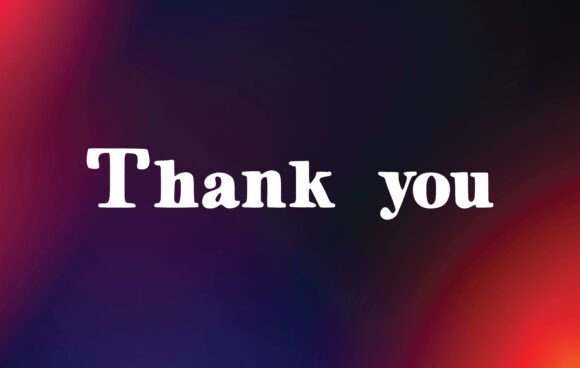
Aziza Font: The Ultimate Creative Companion for Your Design Needs
In the world of typography, a font can make or break a design. It’s the foundation upon which your creative ideas are built, and choosing the right one can elevate your project from ordinary to extraordinary. This is where Aziza Font comes into play – a versatile, eye-catching, and highly legible typeface designed to bring your creative visions to life. Whether you’re a seasoned designer or a DIY enthusiast, Aziza Font is poised to become your go-to favorite for a wide range of design applications.
What Makes Aziza Font Stand Out?
Aziza Font is crafted with clarity and readability in mind, making it an excellent choice for both titles and body text. Its clean lines and well-balanced structure ensure that your message is conveyed with precision and style, regardless of the medium. Here are some key features that make Aziza Font a standout:
- Versatility: Aziza Font is designed to be versatile, allowing it to seamlessly integrate into various design projects. From magazine covers and t-shirts to social media posts, branding materials, wedding invitations, and greeting cards, this font adapts to any style or theme with ease.
- Eye-Catching: With its unique charm and character, Aziza Font is sure to capture the attention of your audience. Its aesthetic appeal lies in its ability to blend modernity with classic typographic elements, making it both contemporary and timeless.
- Legibility: The clarity of Aziza Font is one of its most compelling features. It’s designed to be easy to read, even at smaller sizes, which makes it perfect for body text and detailed content.
Applications of Aziza Font
The versatility of Aziza Font means it can be used across a broad spectrum of design projects. Here are some of the areas where Aziza Font truly shines:
Magazine Covers and Publishing
For magazine covers, Aziza Font can serve as a headline or title font, grabbing the attention of potential readers with its stylish and modern appeal. Its legibility ensures that the title of your publication stands out, even from a distance.
Fashion and Apparel
When it comes to designing t-shirts, hoodies, or any fashion apparel, Aziza Font can add a touch of sophistication and trendiness. Its clear and readable design ensures that your message or logo is easily recognizable and memorable.
Social Media and Digital Content
In the digital realm, Aziza Font can elevate your social media posts, blog headers, and website content. Its modern look and feel can help increase engagement and make your content more shareable.
Branding and Marketing Materials
For branding, Aziza Font can be used consistently across all marketing materials to create a cohesive and professional look. Its versatility allows it to work well in logos, brochures, business cards, and more.
Wedding Invitations and Greeting Cards
Aziza Font brings an elegant and personal touch to wedding invitations, greeting cards, and other personal stationery. Its stylish yet readable design makes it perfect for conveying heartfelt messages.
Why Choose Aziza Font?
With so many fonts available, why should Aziza Font be your top choice? The answer lies in its unique blend of style, versatility, and readability. Here are some compelling reasons to choose Aziza Font for your next design project:
- Time-Saver: Having a go-to font like Aziza Font saves you time in the long run. You don’t have to spend hours searching for the perfect font for your project; Aziza Font can be your reliable choice every time.
- Consistency: Using a consistent font across your projects and platforms helps in building a recognizable brand identity. Aziza Font can become synonymous with your brand’s style and aesthetic.
- Creativity Boost: Sometimes, the right font can spark creativity and guide your design decisions. Aziza Font, with its stylish and modern appeal, can inspire new ideas and help bring your vision to life.
Aziza Font is more than just a typeface; it’s a creative tool designed to enhance your design work. Its versatility, eye-catching appeal, and high legibility make it an ideal choice for a wide range of projects. Whether you’re a professional designer looking for a reliable font or a DIY enthusiast seeking to elevate your creative projects, Aziza Font is ready to bring your ideas to life with style and personality. Make Aziza Font your go-to favorite and discover the difference it can make in your designs.